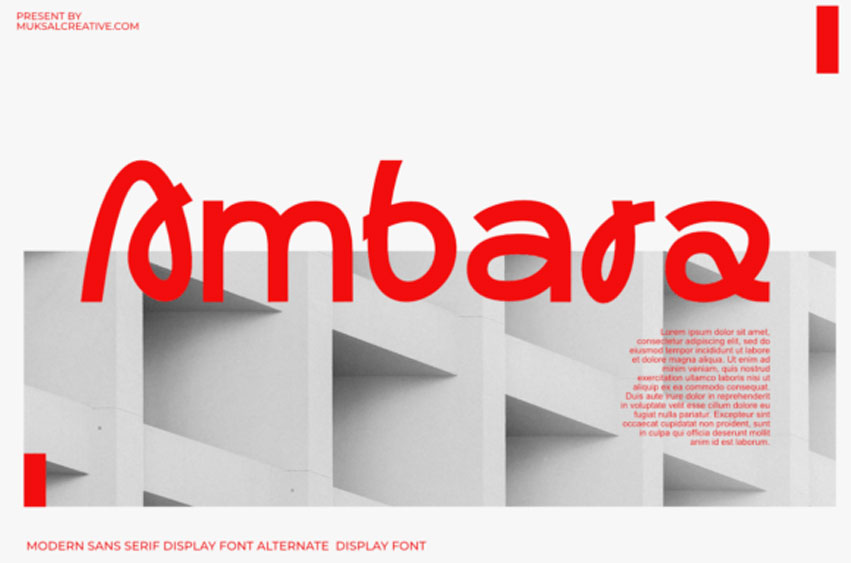
Ambara Font is a modern sans-serif font with an elegant and futuristic display alternative touch. Designed to emphasize clarity and sophistication, Ambara combines bold lines with smooth curves, creating a perfect balance between strength and subtlety.
This font offers a variety of alternate glyphs, allowing for limitless creativity in design, making it ideal for headlines, branding, or projects that require a modern and dynamic touch.